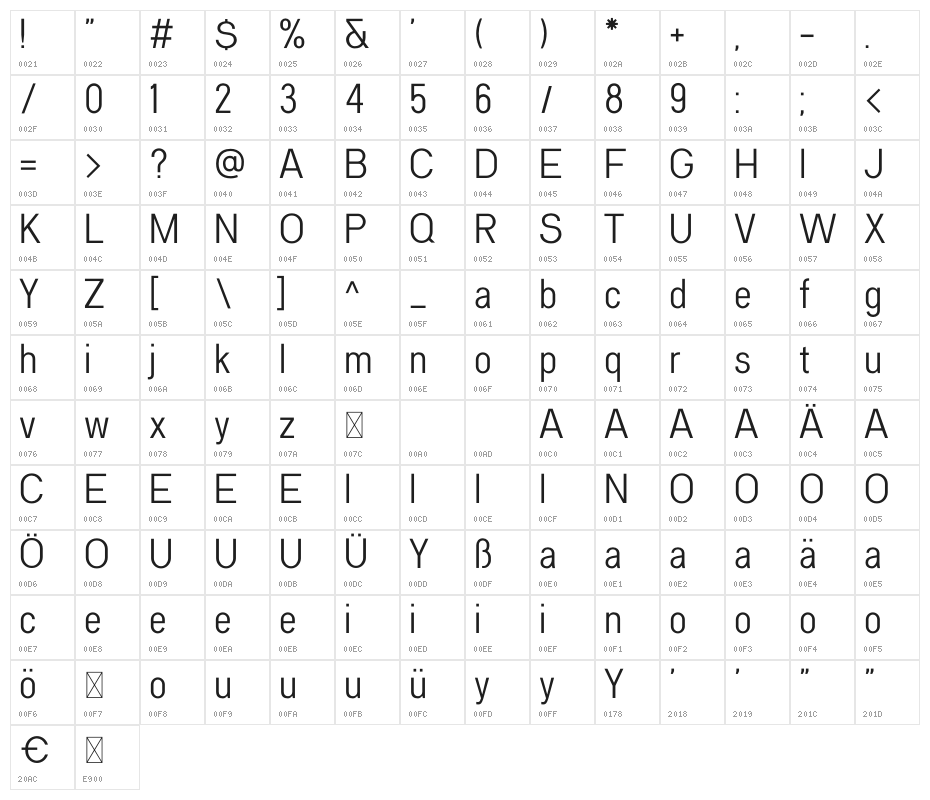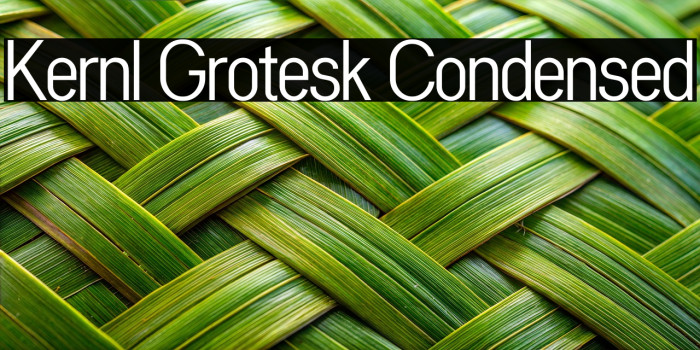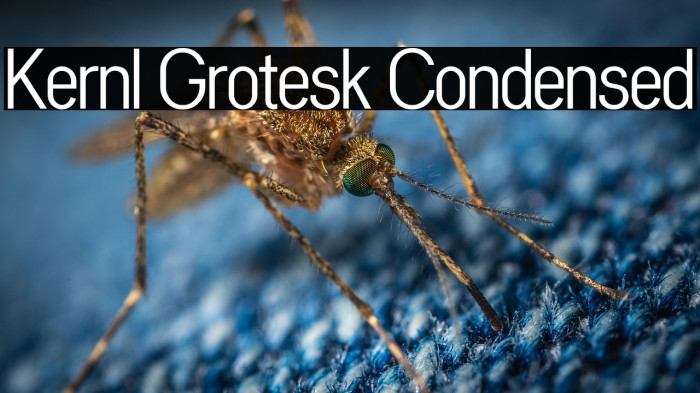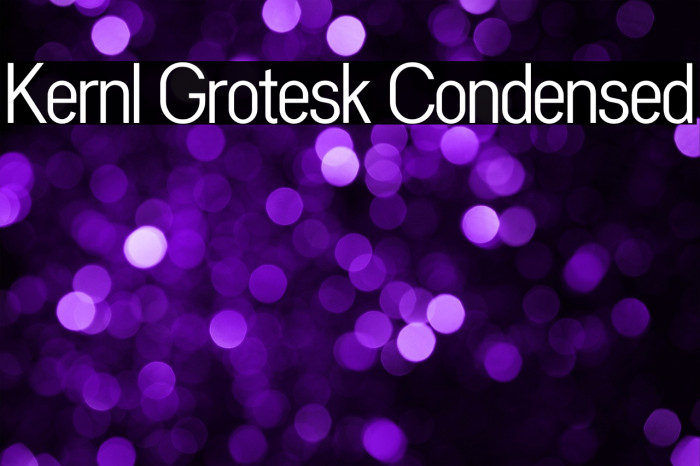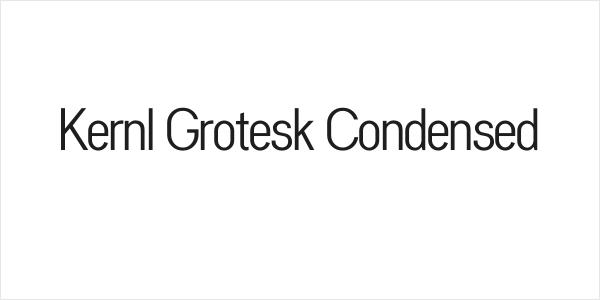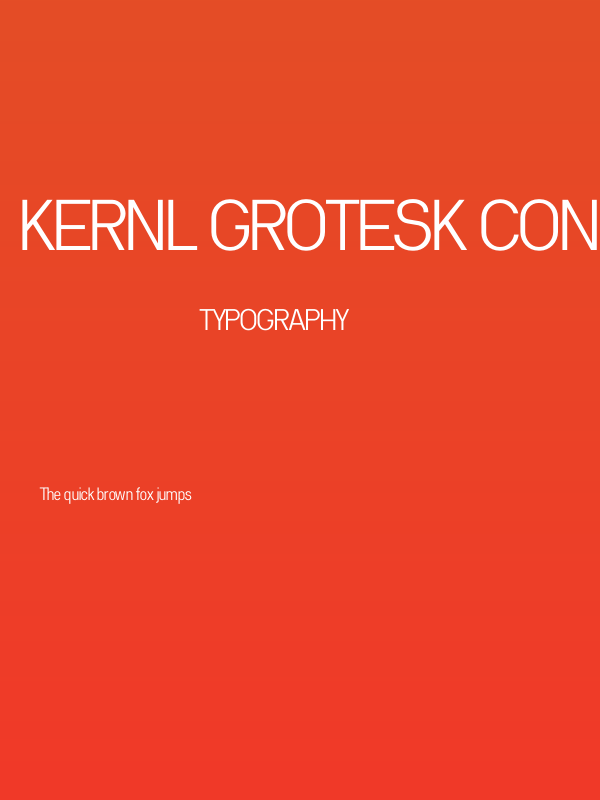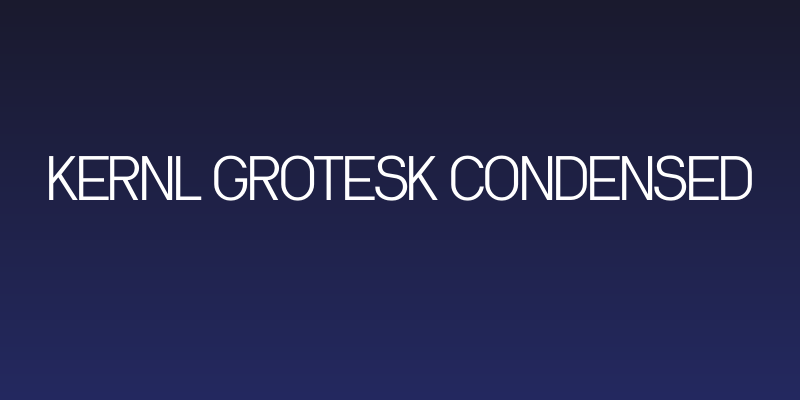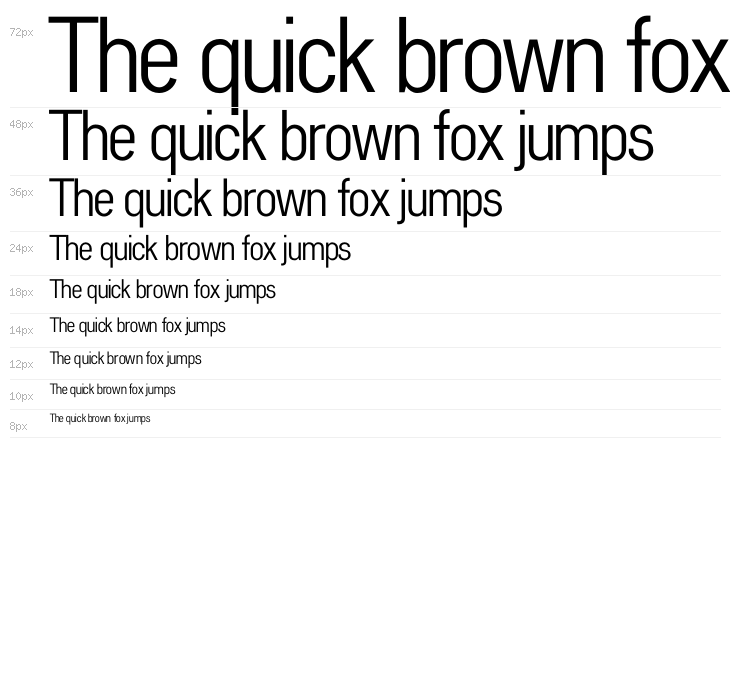
Kernl Grotesk Condensed Font
Kernl Grotesk Condensed Description
This font features a clean and modern sans-serif style with a condensed width, making it ideal for space-saving applications. The characters are uniform in stroke width, providing a consistent and harmonious appearance. The uppercase and lowercase letters are well-proportioned, with a slight geometric influence that adds to its contemporary aesthetic. The numerals and special characters maintain the same design principles, ensuring readability and versatility across various uses. Its simplicity and clarity make it suitable for both digital and print media.
| Proposed Projects | Ideal for branding, editorial design, web interfaces, and signage where space is limited. |